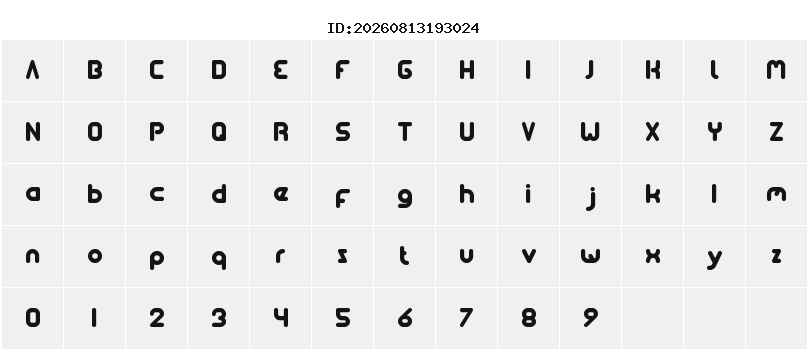
soulmate Preview
• Font Name: soulmate
• Full Font Name: soulmate
• Version: Version 1.00 October 11, 2011, initial release
About soulmate.ttf
soulmate.ttf is a modern, elegant sans-serif font designed for ultimate readability and visual harmony. Perfect for branding, headlines, web design, and print materials.